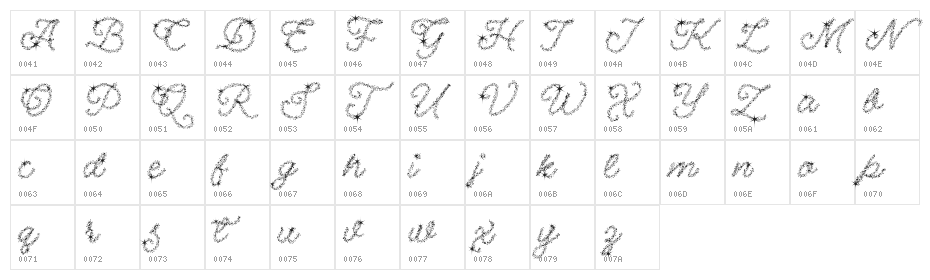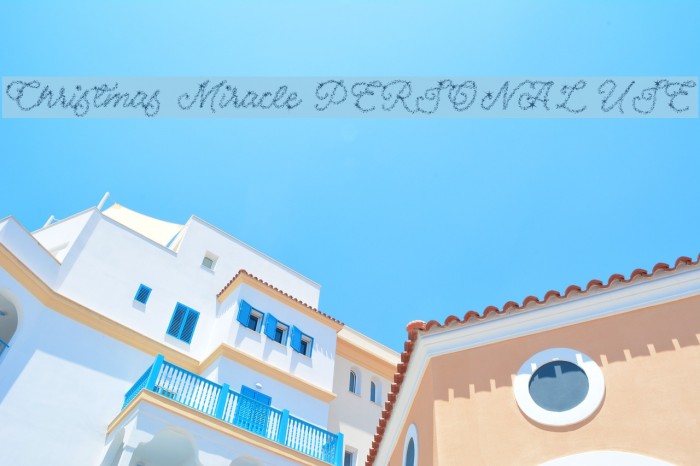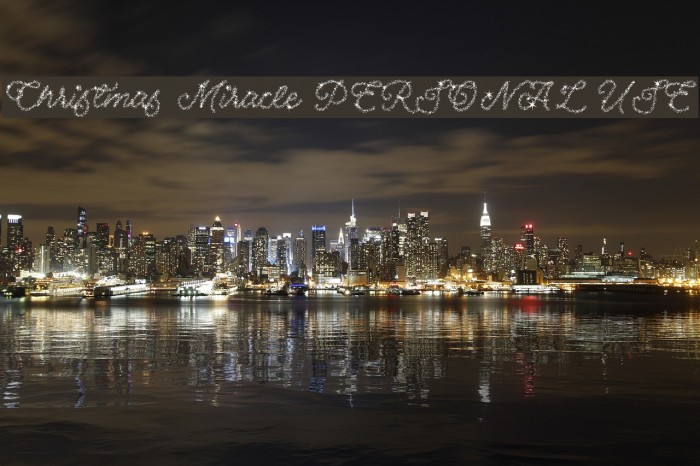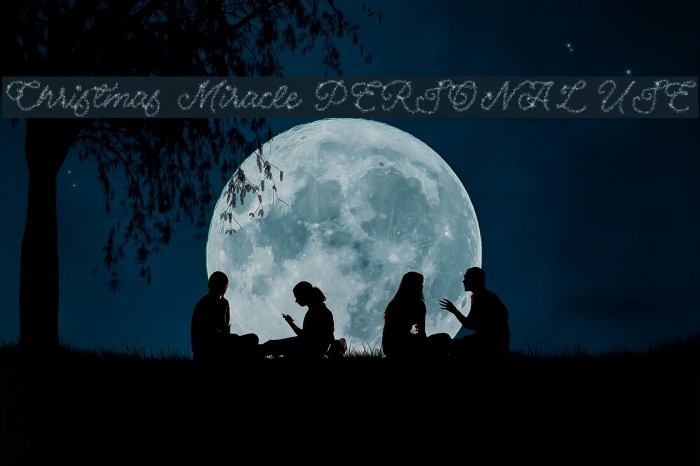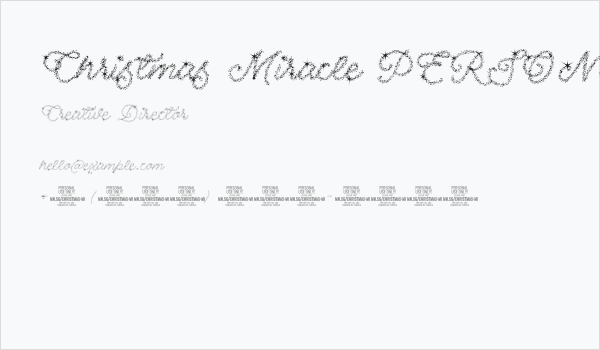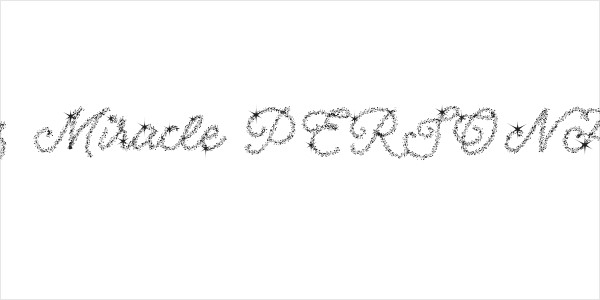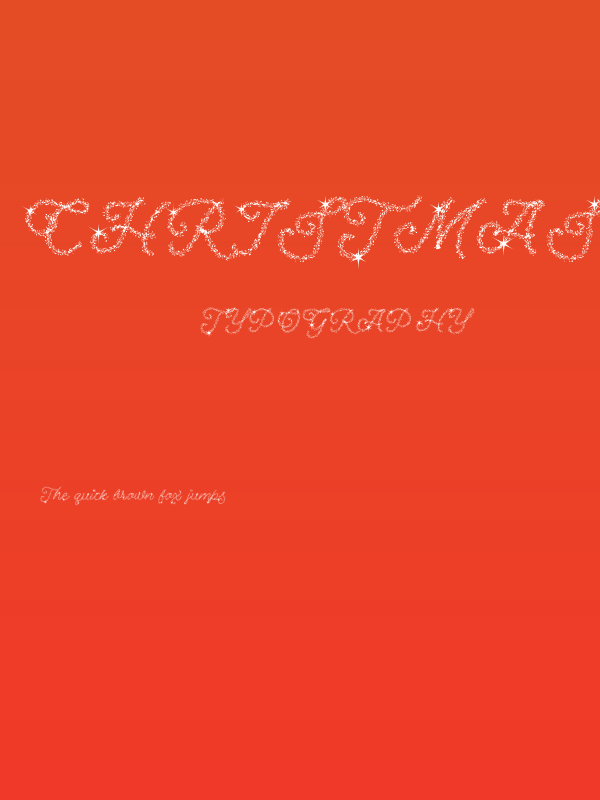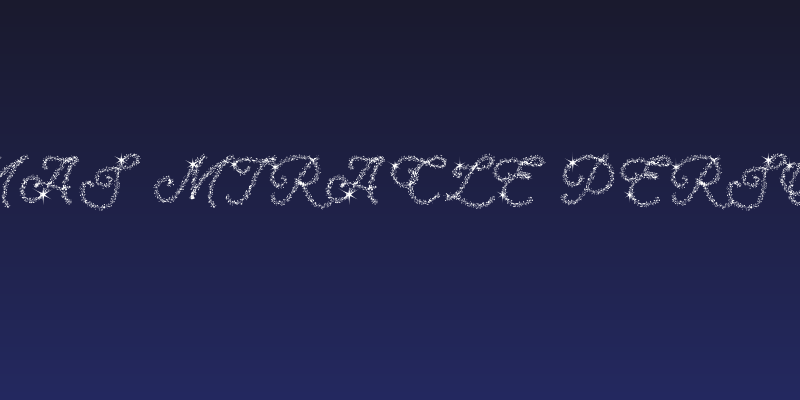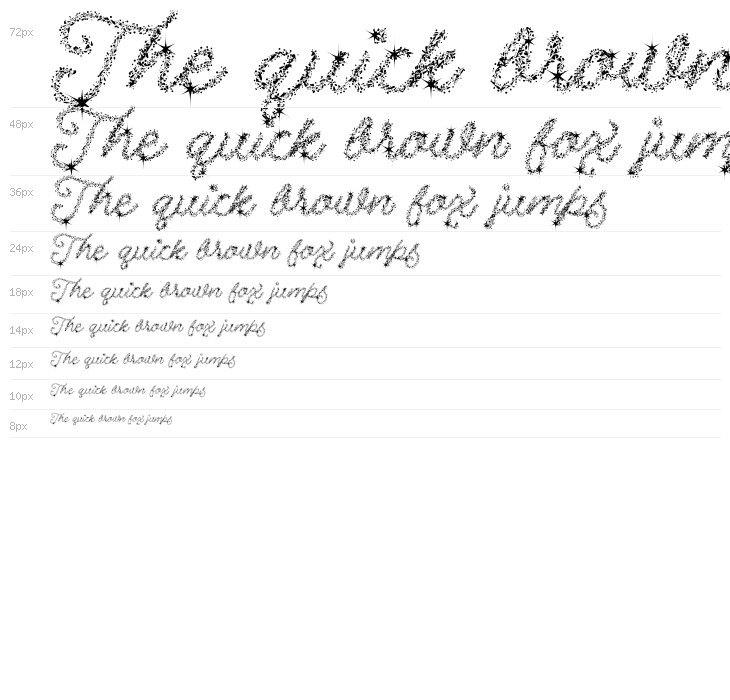
Christmas Miracle PERSONAL USE Font
Christmas Miracle PERSONAL USE Description
This font exudes a festive and whimsical charm, reminiscent of twinkling holiday lights. Each character is adorned with sparkling stars and dots, creating a lively and enchanting appearance. The script style is fluid and elegant, with a playful touch that captures the essence of a magical winter wonderland. The uppercase and lowercase letters maintain a consistent decorative theme, while the numbers and special characters are equally embellished, ensuring a cohesive look across all text. This font is perfect for adding a touch of holiday spirit to any project, making it ideal for festive invitations, greeting cards, and seasonal branding.
| Use Case | Headlines, Logos, Decorative text |
| Proposed Projects | Ideal for holiday cards, festive invitations, seasonal branding, and decorative posters. |